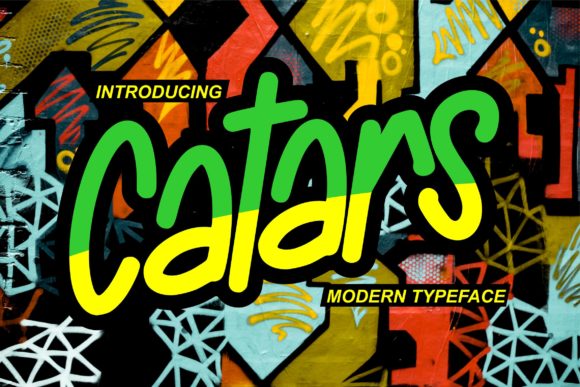
Dive into the world of artistic expression with Catars, a captivating display font that radiates joy and vibrancy. Its unique and colorful characters bring life to your creative visions, making them shine with a captivating charm. Whether you're crafting stunning cover art, designing eye-catching logos, or creating enchanting social media graphics, Catars effortlessly elevates your designs to new heights. Unleash your imagination and witness the transformative power Catars brings to your artistic endeavors.
With Catars, your designs will exude a sense of warmth and playfulness, capturing the attention of your audience. Its versatility knows no bounds, seamlessly adapting to a myriad of creative projects. Effortlessly craft captivating posters that draw the eye, design invitations that spark excitement, and create social media posts that ignite engagement. Catars is your ultimate companion in the realm of visual communication, enabling you to convey messages with a touch of delight and creativity.
Experience the magic of Catars and unlock a realm of endless possibilities. Say goodbye to ordinary fonts and embrace the extraordinary with Catars. Let your designs blossom with joy, radiate warmth, and captivate hearts. It's the perfect font to make a statement and leave a lasting impression.